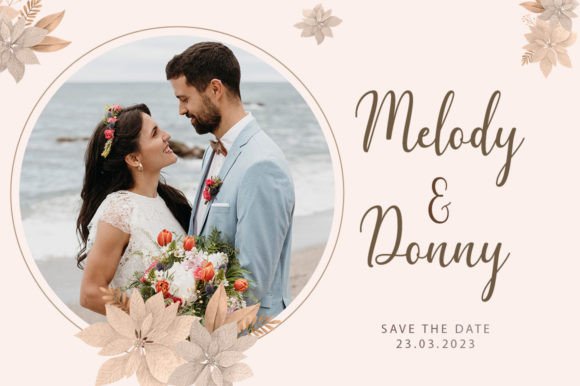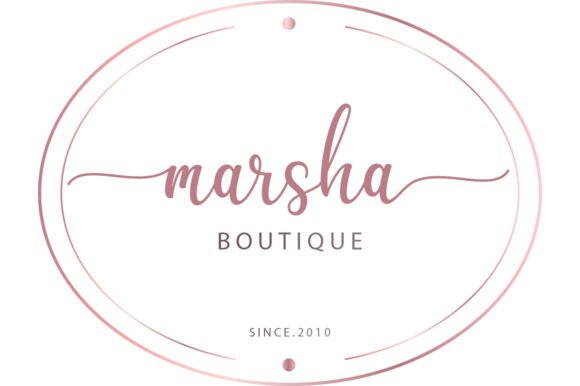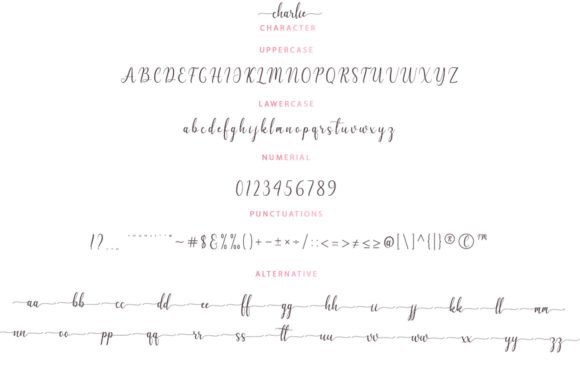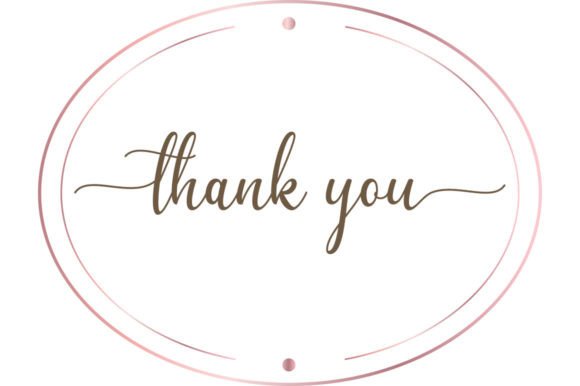
Discover the Elegance of Charlie Font: A Timeless Handwritten Script
Are you on the hunt for a font that exudes elegance, sophistication, and a touch of whimsy? Look no further than Charlie Font, a delicate and flowing handwritten script that’s perfect for a wide range of design projects. With its incredibly distinct and timeless style, Charlie Font is sure to capture the hearts of designers and crafters alike.
The Unique Charm of Charlie Font
Charlie Font boasts a unique charm that’s hard to find in other fonts. Its delicate, cursive strokes and elegant swashes make it perfect for creating beautiful designs that stand out from the crowd. Whether you’re working on a branding project, a wedding invitation, or a craft project, Charlie Font is the perfect choice. Its flowing script and intricate details will add a touch of sophistication and whimsy to any design.
One of the best things about Charlie Font is that it’s PUA (Private Use Area) encoded. This means that you can access all of the glyphs and swashes with ease, giving you even more creative possibilities. With PUA encoding, you can easily insert special characters, ligatures, and swashes into your designs, taking them to the next level.
Charlie Font is incredibly versatile, making it perfect for a wide range of projects. Here are just a few ideas to get you started:
- Branding and Packaging: Use Charlie Font to create elegant and sophisticated branding materials, such as logos, business cards, and product labels.
- Wedding and Event Design: Charlie Font is perfect for creating beautiful wedding invitations, programs, and other event materials.
- Crafting and Scrapbooking: Add a touch of elegance to your scrapbooking and crafting projects with Charlie Font. Use it to create beautiful journal cards, tags, and other embellishments.
- Digital Design: Charlie Font can also be used for digital design projects, such as social media graphics, blog headers, and website titles.
Why Choose Charlie Font?
With so many fonts to choose from, why should you choose Charlie Font? Here are just a few reasons:
- Unique and Timeless Style: Charlie Font has a unique and timeless style that’s sure to stand out from the crowd.
- Elegant and Sophisticated: Charlie Font exudes elegance and sophistication, making it perfect for high-end designs.
- Easy to Use: Charlie Font is PUA encoded, making it easy to access all of the glyphs and swashes.
- Versatile: Charlie Font can be used for a wide range of projects, from branding and packaging to wedding design and crafting.
Tips for Using Charlie Font
Here are a few tips for getting the most out of Charlie Font:
- Experiment with Different Sizes: Charlie Font looks beautiful in a variety of sizes, so don’t be afraid to experiment.
- Pair with Other Fonts: Charlie Font pairs beautifully with other fonts, so try pairing it with a bold sans-serif font for a striking contrast.
- Use Swashes and Glyphs: Don’t be afraid to get creative with the swashes and glyphs that come with Charlie Font. They can add a touch of elegance and whimsy to your designs.
In conclusion, Charlie Font is a beautiful and elegant handwritten script that’s perfect for a wide range of design projects. With its unique and timeless style, PUA encoding, and versatility, it’s a font that’s sure to capture the hearts of designers and crafters alike. So why wait? Fall in love with Charlie Font and start creating spectacular designs today!